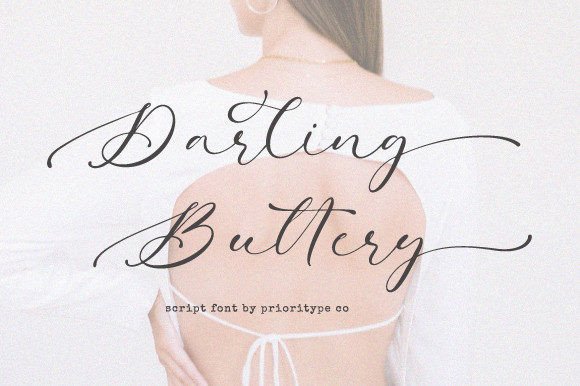
Prepare to be captivated by the enchanting world of Darling Buttery Font, a modern script font that exudes elegance and charm. This exquisite creation by Prioritype is not just a collection of letters; it's an artistic masterpiece that will transform your design projects into breathtaking expressions of creativity.
Immerse yourself in the beauty of Darling Buttery's meticulously crafted curves, each stroke imbued with a delicate touch that dances across the page. Its soft and flowing lines evoke a sense of timeless sophistication, making it the perfect choice for wedding invitations, logos, quotes, branding, and more.
With Darling Buttery, you can effortlessly create designs that speak to the heart. Its versatility knows no bounds, allowing you to effortlessly weave it into any project, from whimsical invitations to bold branding statements. This font is your gateway to a world of endless possibilities, where your imagination is the only limit.
Unleash the full potential of your creative vision with Darling Buttery. Its enchanting allure will captivate your audience, leaving them breathless with its timeless beauty. Embrace the power of this modern script font and watch as your designs transcend the ordinary, becoming captivating works of art.